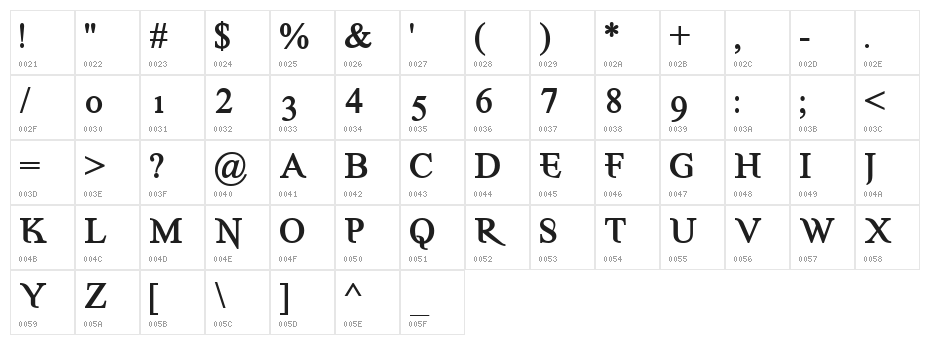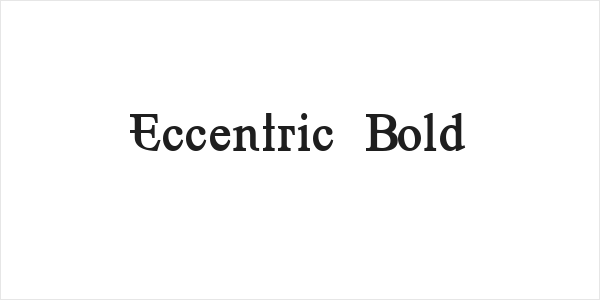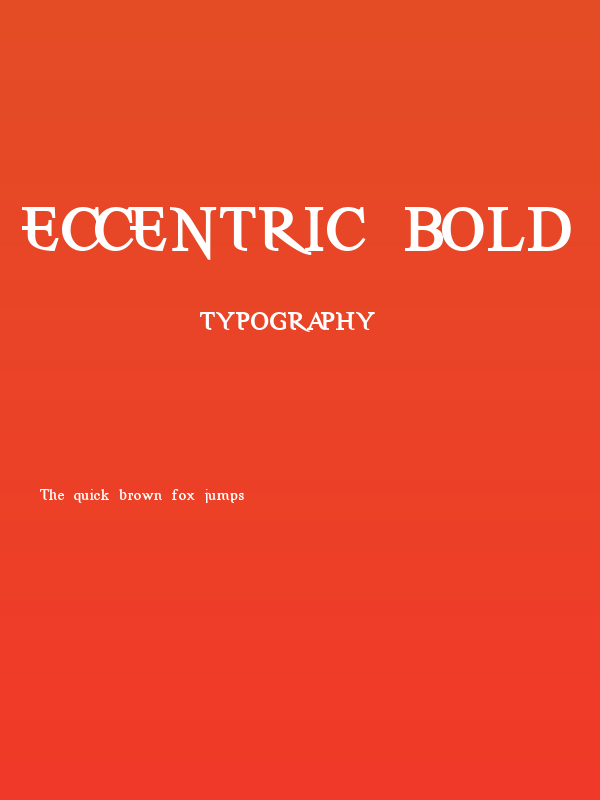
Eccentric Bold Font
Eccentric Bold Description
This font features a bold and striking design with a unique blend of traditional serif elements and modern flair. The uppercase letters are characterized by their strong, angular serifs and slightly condensed forms, giving them a commanding presence. The lowercase letters maintain a consistent style, with rounded forms and distinctive serifs that add a touch of elegance. Numbers are bold and clear, ensuring readability, while special characters are designed with the same attention to detail, making them stand out. The overall aesthetic is both classic and contemporary, making it versatile for various design needs.
| Use Case | Headlines, Logos, Editorial Design |
| Proposed Projects | Ideal for branding, editorial design, headlines, and posters where a strong, sophisticated presence is desired. |